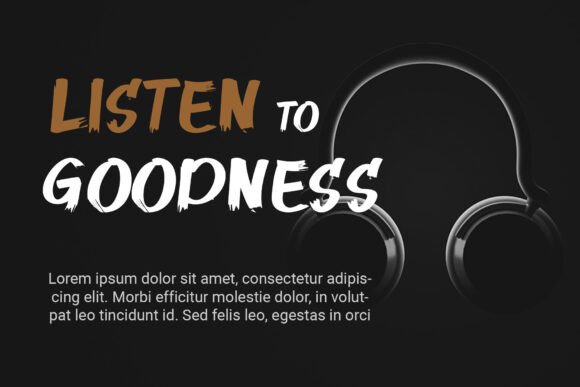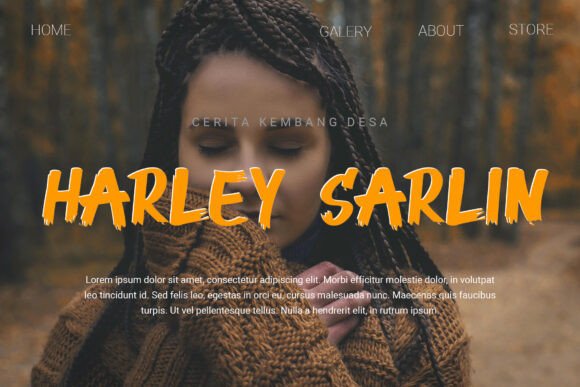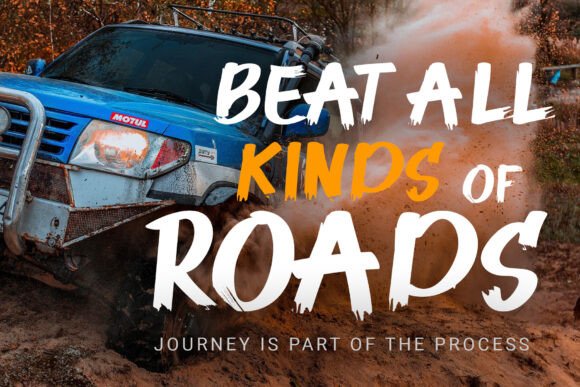
Oke Brush Font: Bold Handwritten Script for Creative DIY Designs
About the Oke Brush Font
The Oke Brush Font is here to transform your projects with its distinctive character and style. OKE BRUSH Handwritten Font with Handmade character. OKE BRUSH brings authentic handwritten font to make your design project stand out! OKE BRUSH is a perfectly choice for any creative endeavor, creating, modern, chic, lifestyle design such as logotype, title, cover, branding, invitations, wedding designs, display and magazine, social media posts, advertisements, printed quotes, product packaging, corporate brand, product designs, labels, photography, watermarks, special events and any other project with modern touch.
Oke Brush Font Usage Examples
Oke Brush Font Example